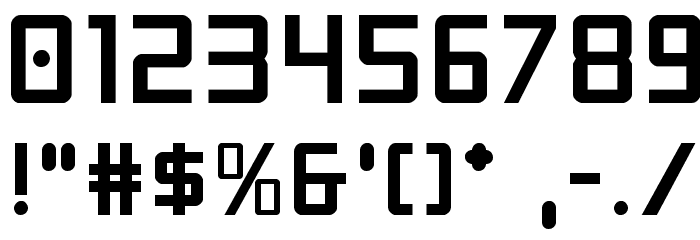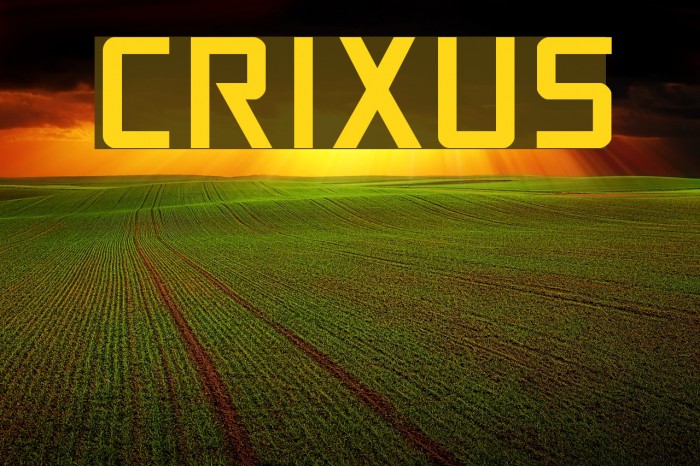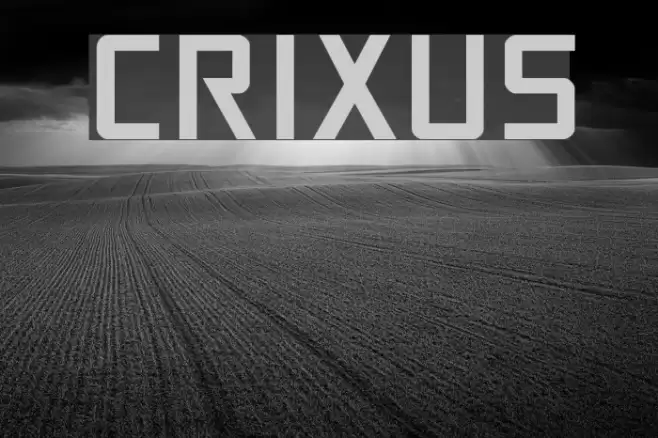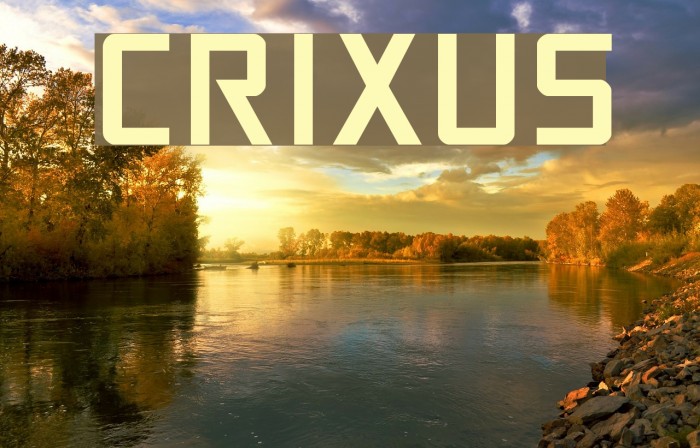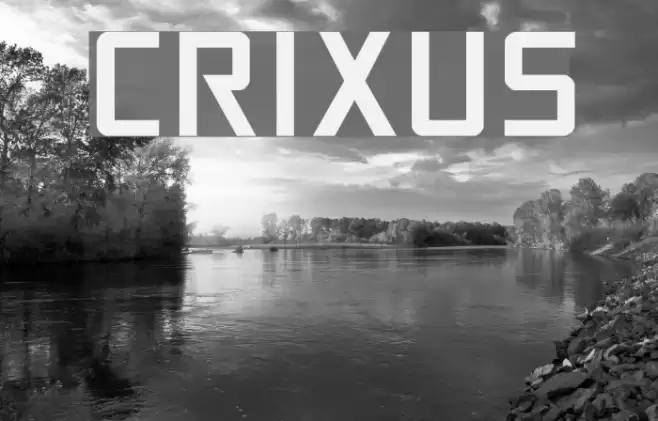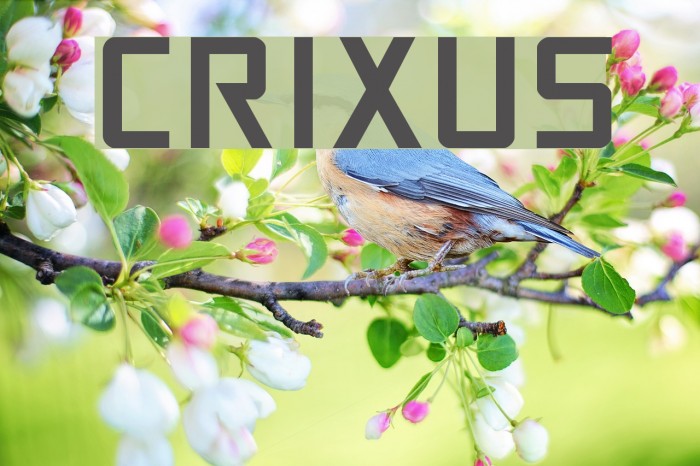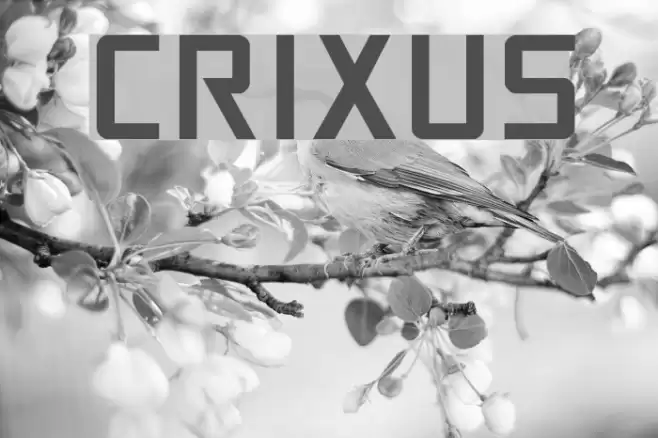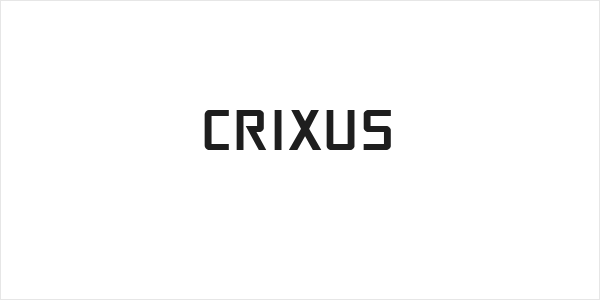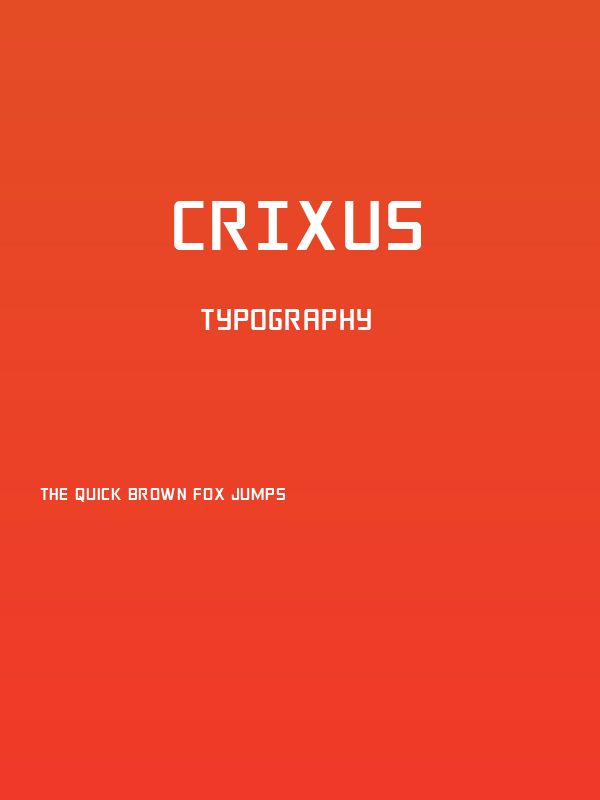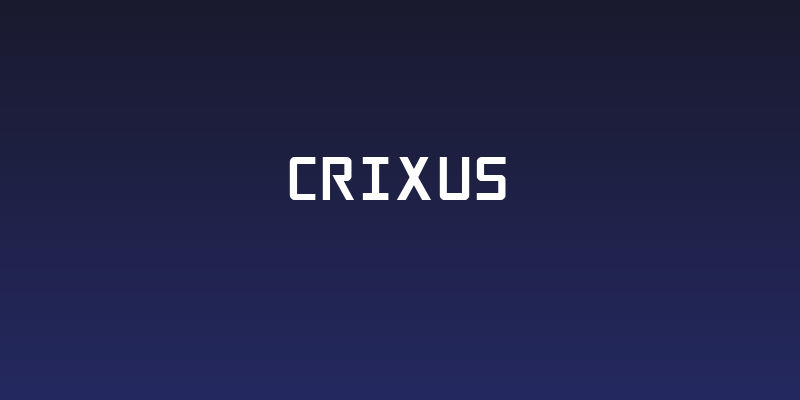
Crixus Font
Crixus Description
This font features a bold and modern design with a geometric structure. The characters are constructed with straight lines and sharp angles, giving it a futuristic and technical appearance. The uppercase and lowercase letters maintain a consistent height, contributing to a uniform look. The numerals are clear and distinct, matching the overall style of the alphabet. Special characters are included, designed to complement the primary letterforms. The font's clean and precise lines make it suitable for digital and print media, where clarity and impact are essential.